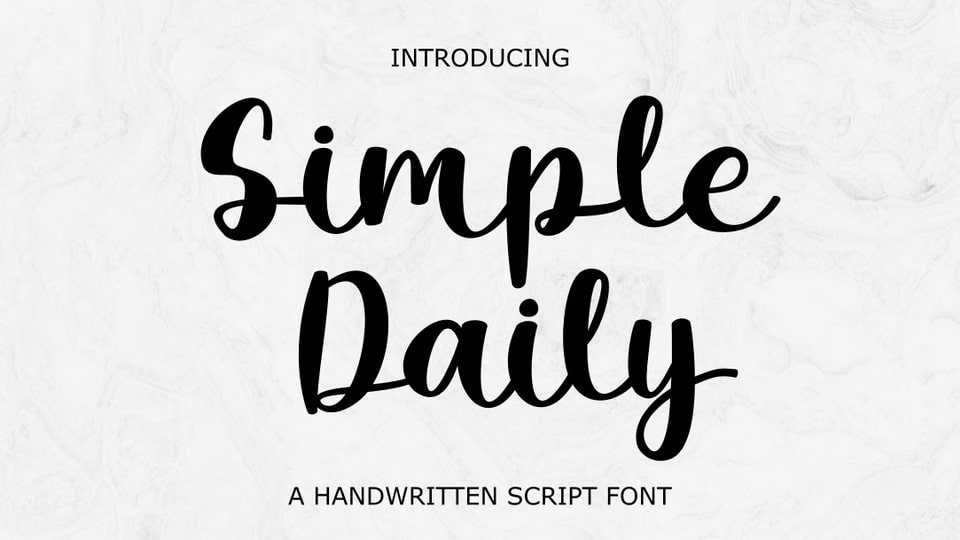
Download Simple Daily font, a cute and simple handwritten font that you can use for all chalkboard quotes or teaching material! Its authentic look will add a personal and realistic feel to your designs.
Designer: Rvandtype Studio